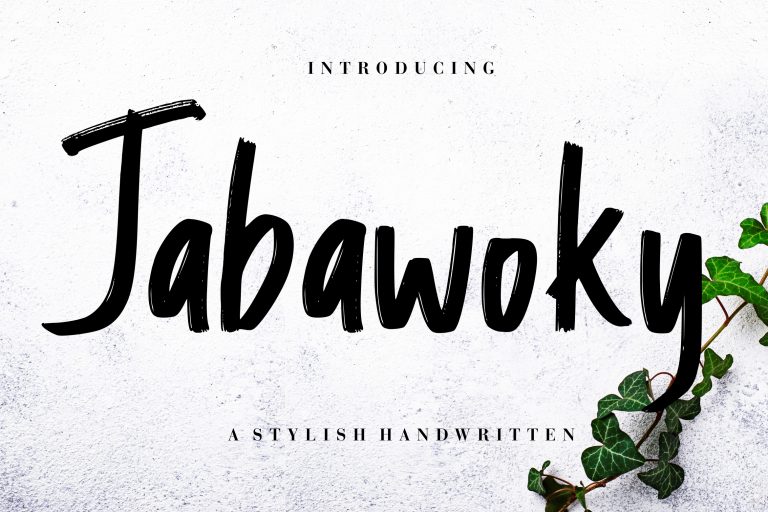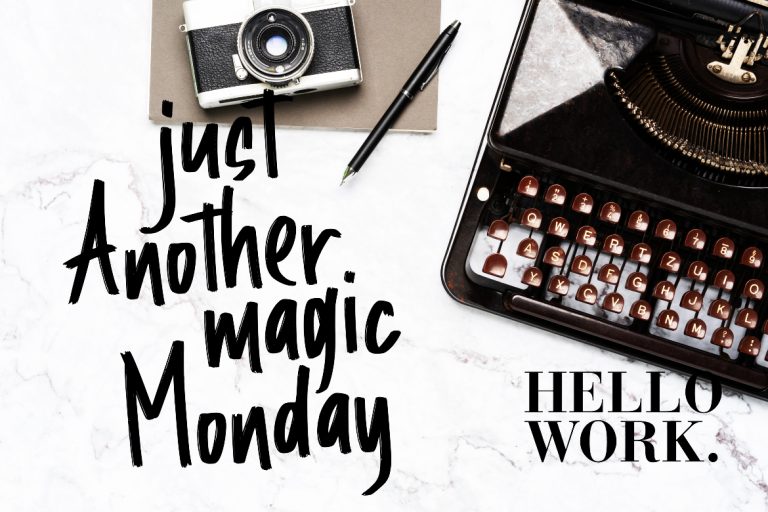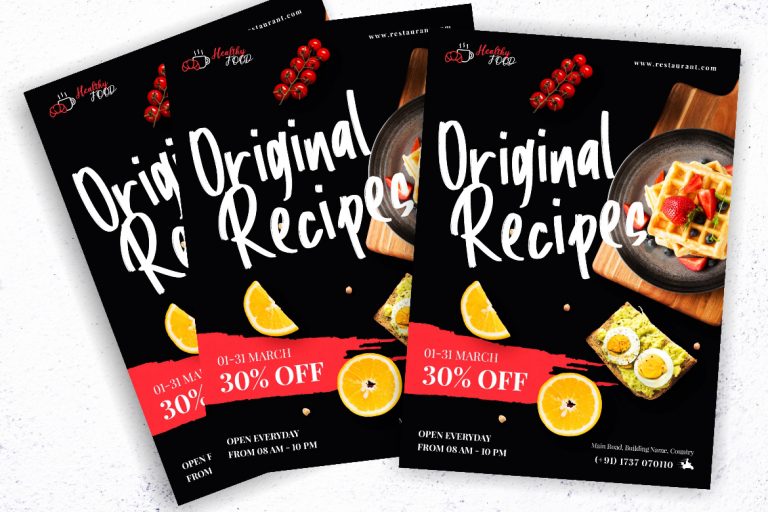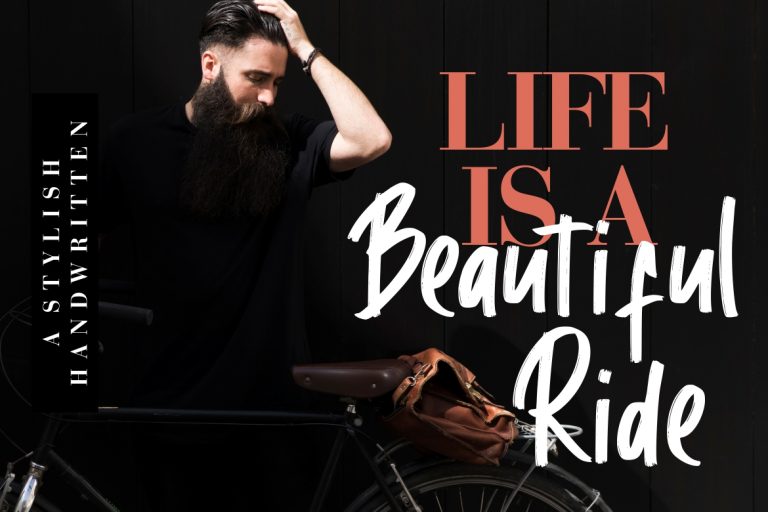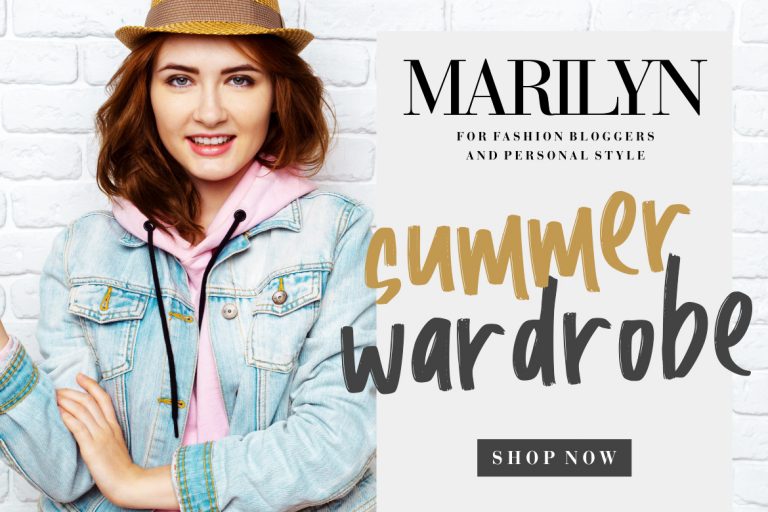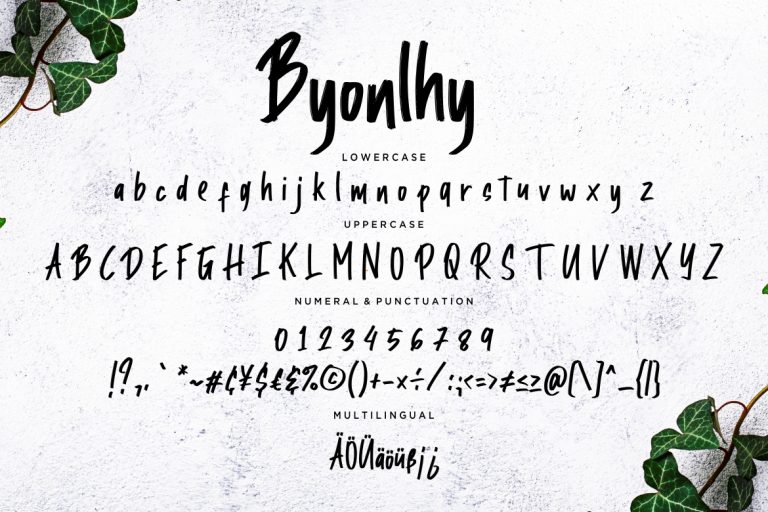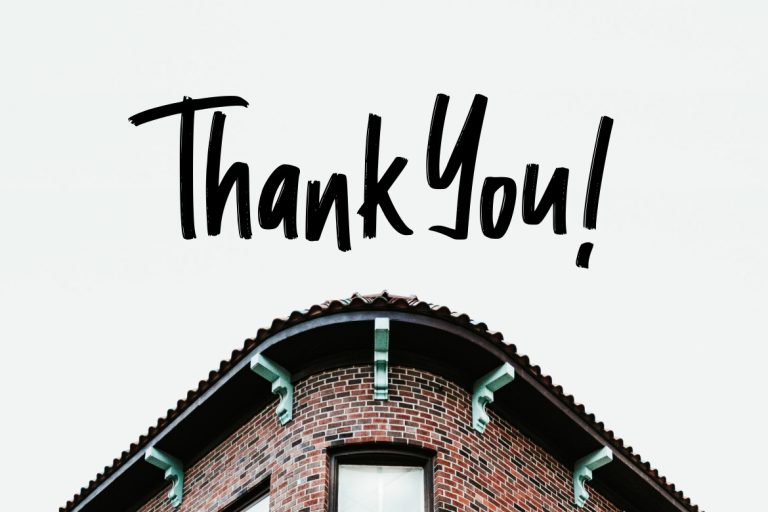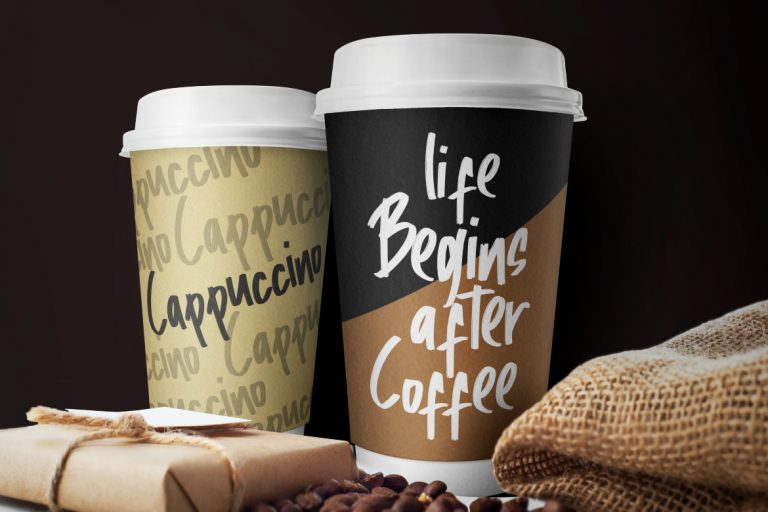
Jabawoky is a stylish handwritten font with natural scratch will make your latest project looks amazing.
• Fonts include multilingual support for; ä ö ü Ä Ö Ü ß ¿ ¡
Jabawoky Stylish Handwritten